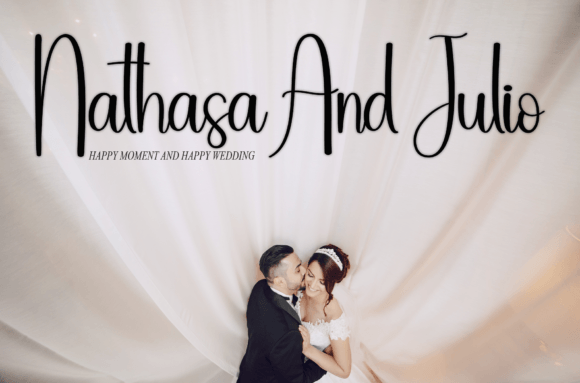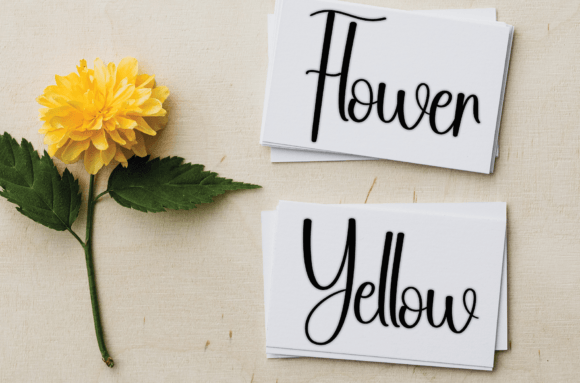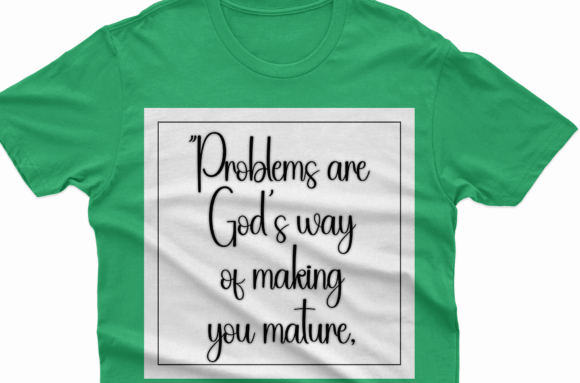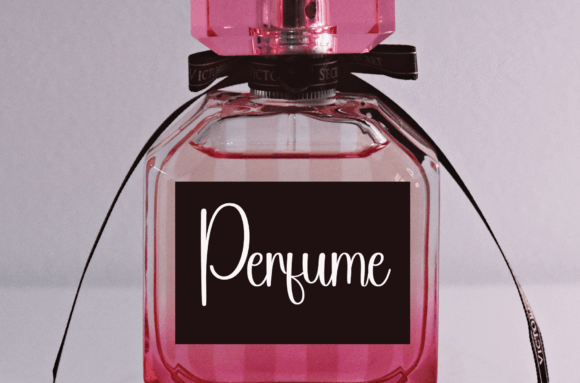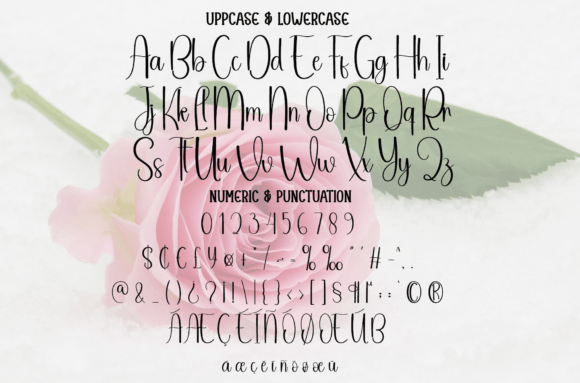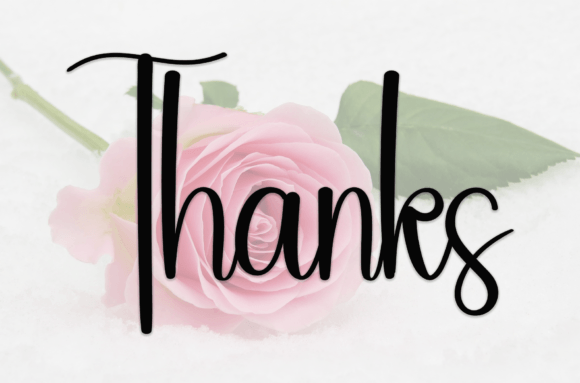
The Sweet Charm of Blossom Font: A Designer’s Delight
I’ll never forget the time I was working on a wedding invitation project, and my client asked for a font that was “sweet, friendly, and playful.” I scoured the internet, tried out dozens of fonts, but nothing seemed quite right. That was until I stumbled upon Blossom Font. With its fresh and neat handwritten style, it was love at first sight! In this article, I’ll share my experience with Blossom Font, its features, and how to make the most of it in your designs.
An Honest Review of Blossom Font
What I Love About Blossom Font
- ✨ Sweet and Friendly Vibe: Blossom Font exudes a warm and inviting feel, perfect for wedding invitations, birthday cards, or any design that needs a personal touch.
- ✅ Highly Legible: The font is clean and easy to read, making it suitable for both digital and print designs.
- 🌸 Versatile: Blossom Font can be used for a wide range of projects, from formal events to casual gatherings.
While Blossom Font is a beautiful font, there are a few things to keep in mind:
- 🤔 Limited Character Set: Blossom Font may not have an extensive character set, which can limit its use in certain projects.
- ⚠️ Not Suitable for Body Text: Due to its handwritten nature, Blossom Font may not be the best choice for large blocks of text.
- Experiment with OpenType features like ligatures and stylistic alternates to add a personal touch to your design.
- Explore glyphs and stylistic alternates to add more variety to your design.
The Backstory of Blossom Font
Blossom Font was designed by a talented typographer who wanted to create a font that captured the sweetness and charm of handwritten writing. Inspired by the beauty of nature and the elegance of script fonts, Blossom Font was born. With its fresh and neat style, it’s perfect for designs that need a personal touch.
Q: What is Blossom Font best used for?
A: Blossom Font is ideal for designs that need a sweet and friendly touch, such as wedding invitations, birthday cards, and other personal designs.
Q: Is Blossom Font suitable for body text?
A: No, Blossom Font is not suitable for large blocks of text due to its handwritten nature. It’s best used for headings, titles, or short paragraphs.